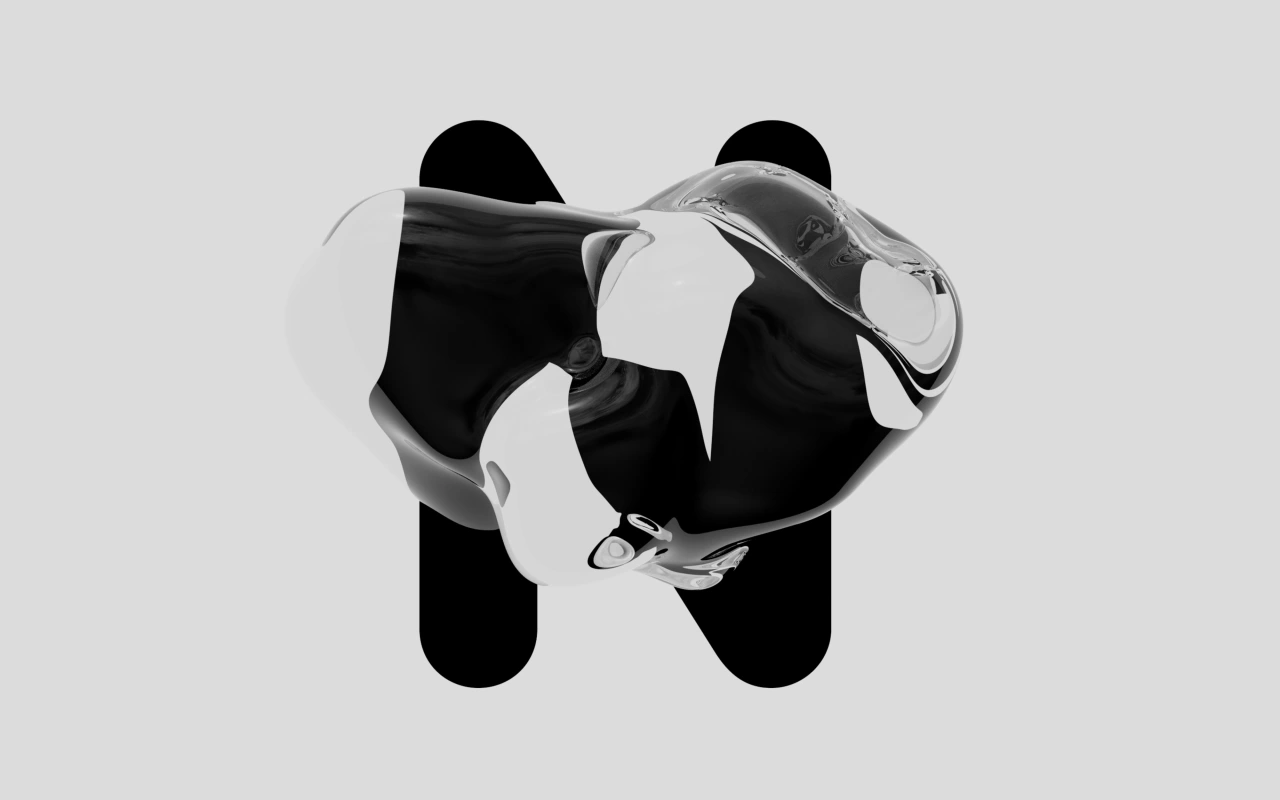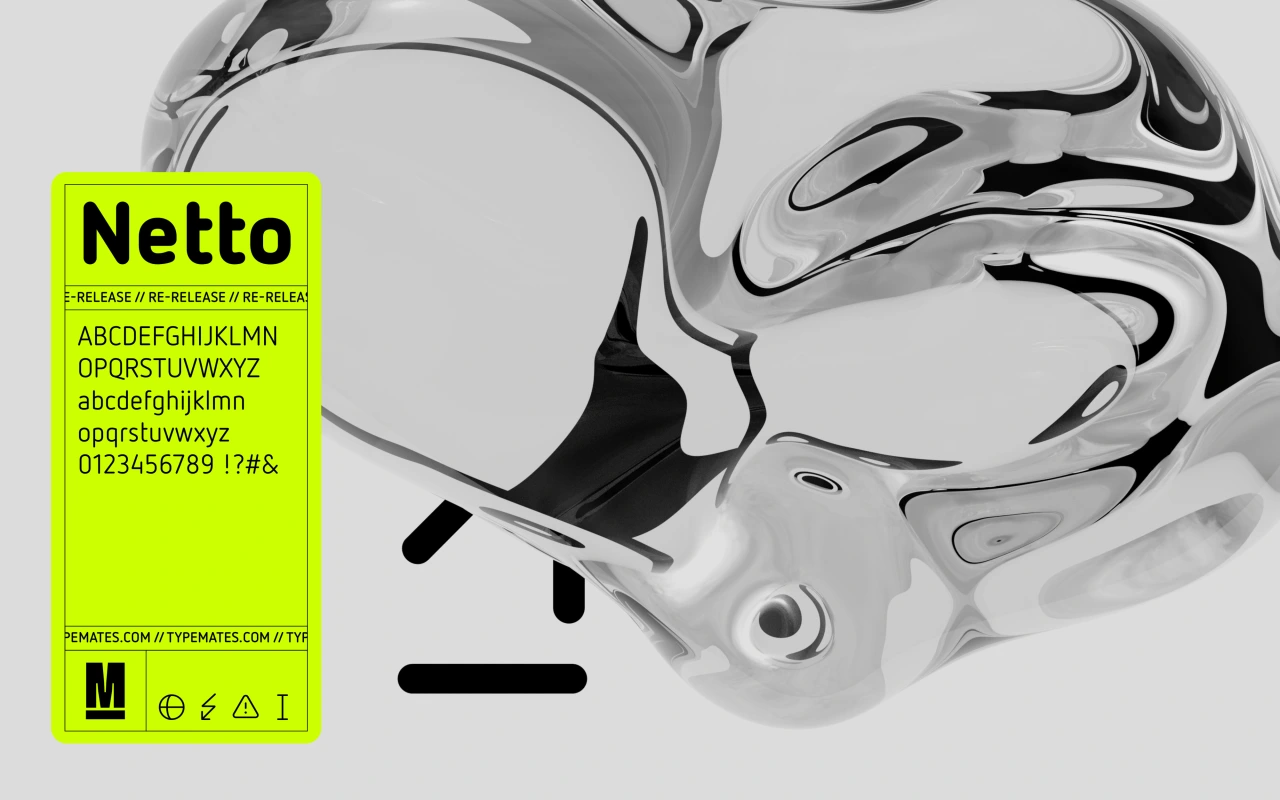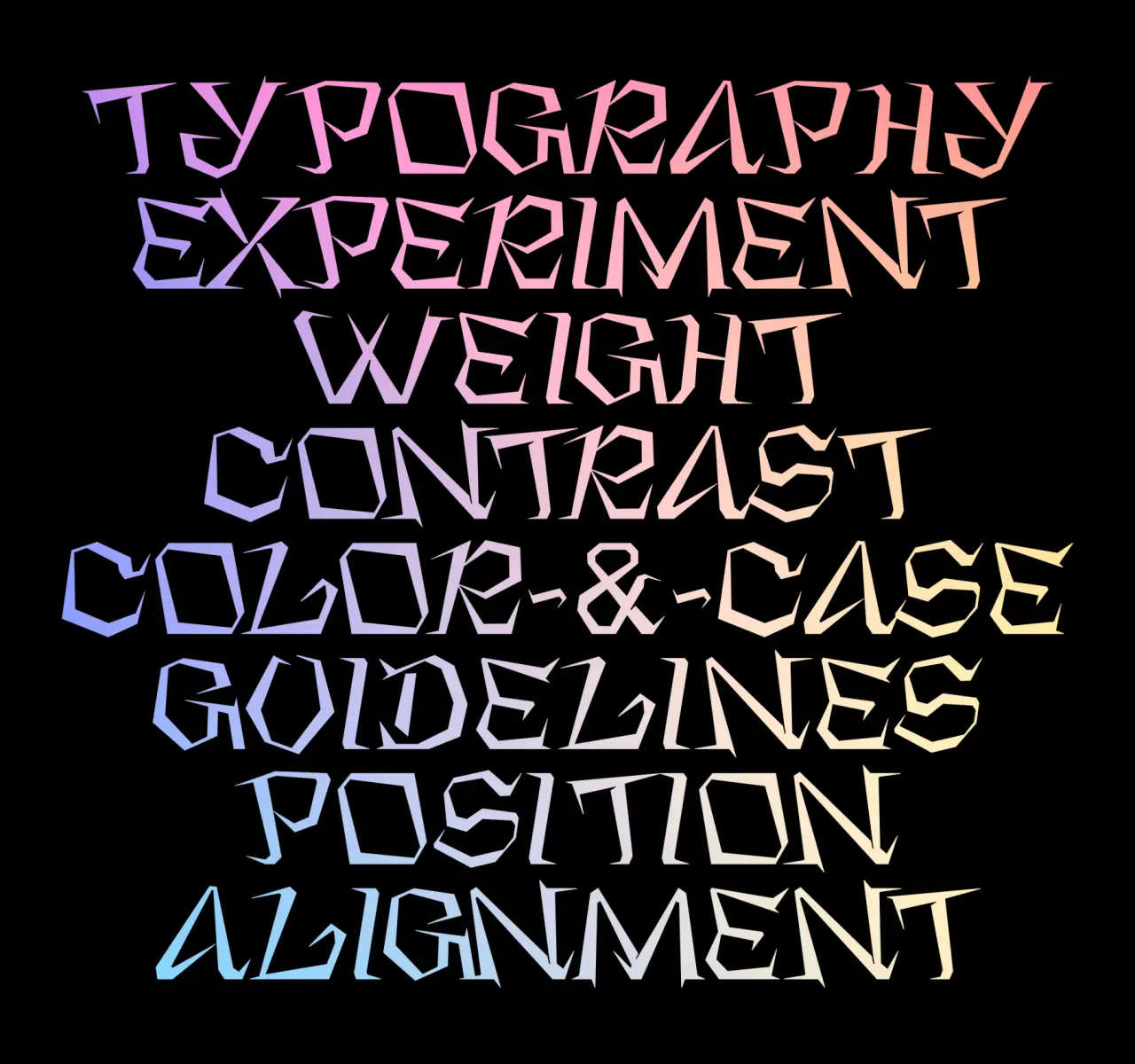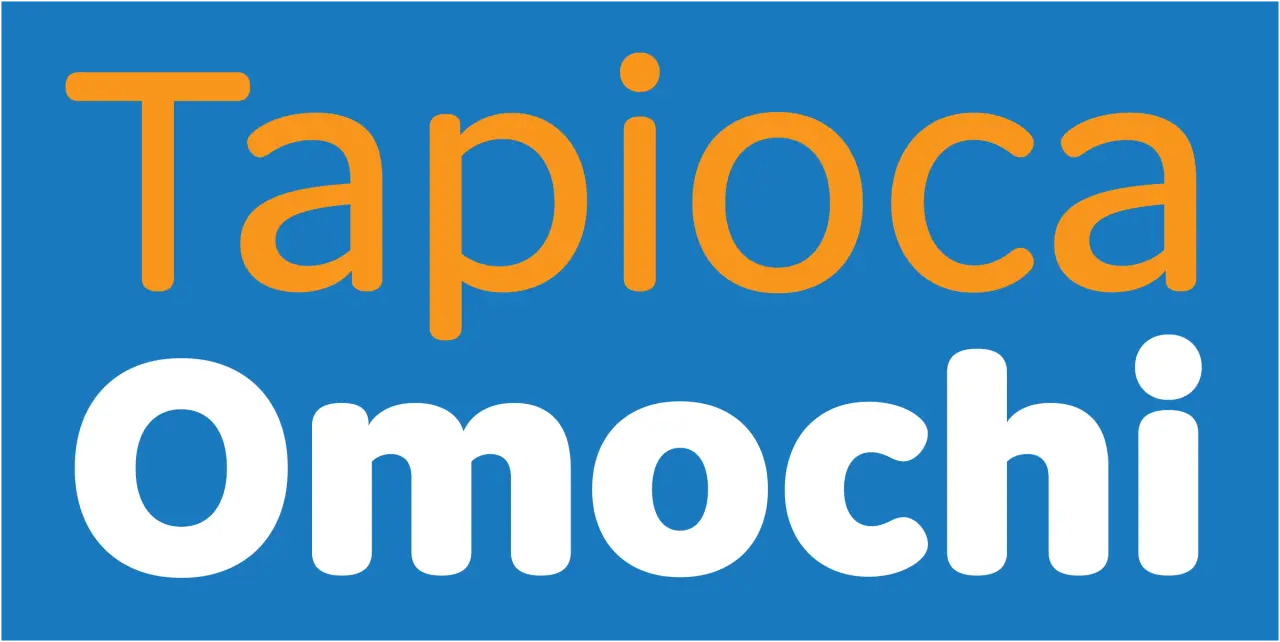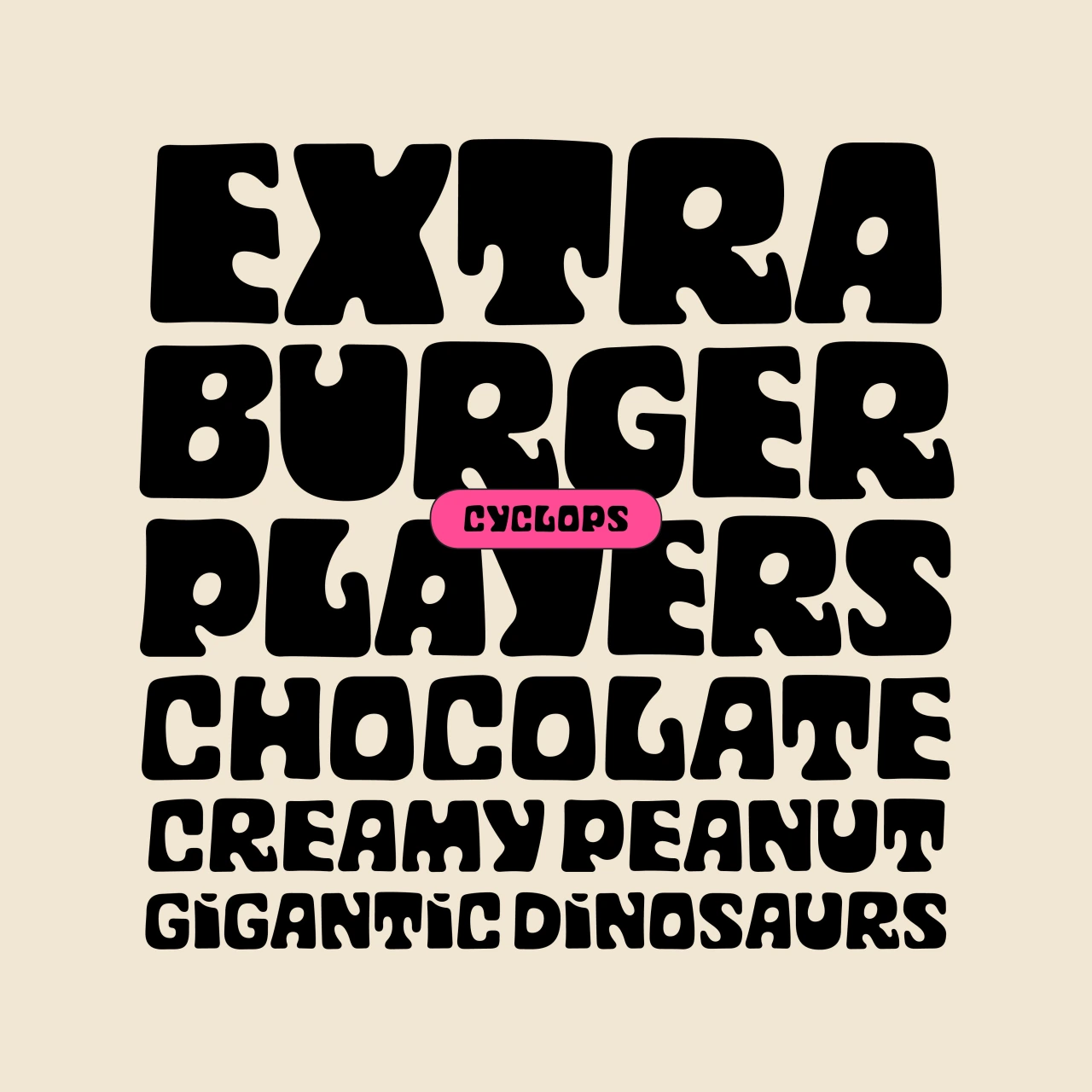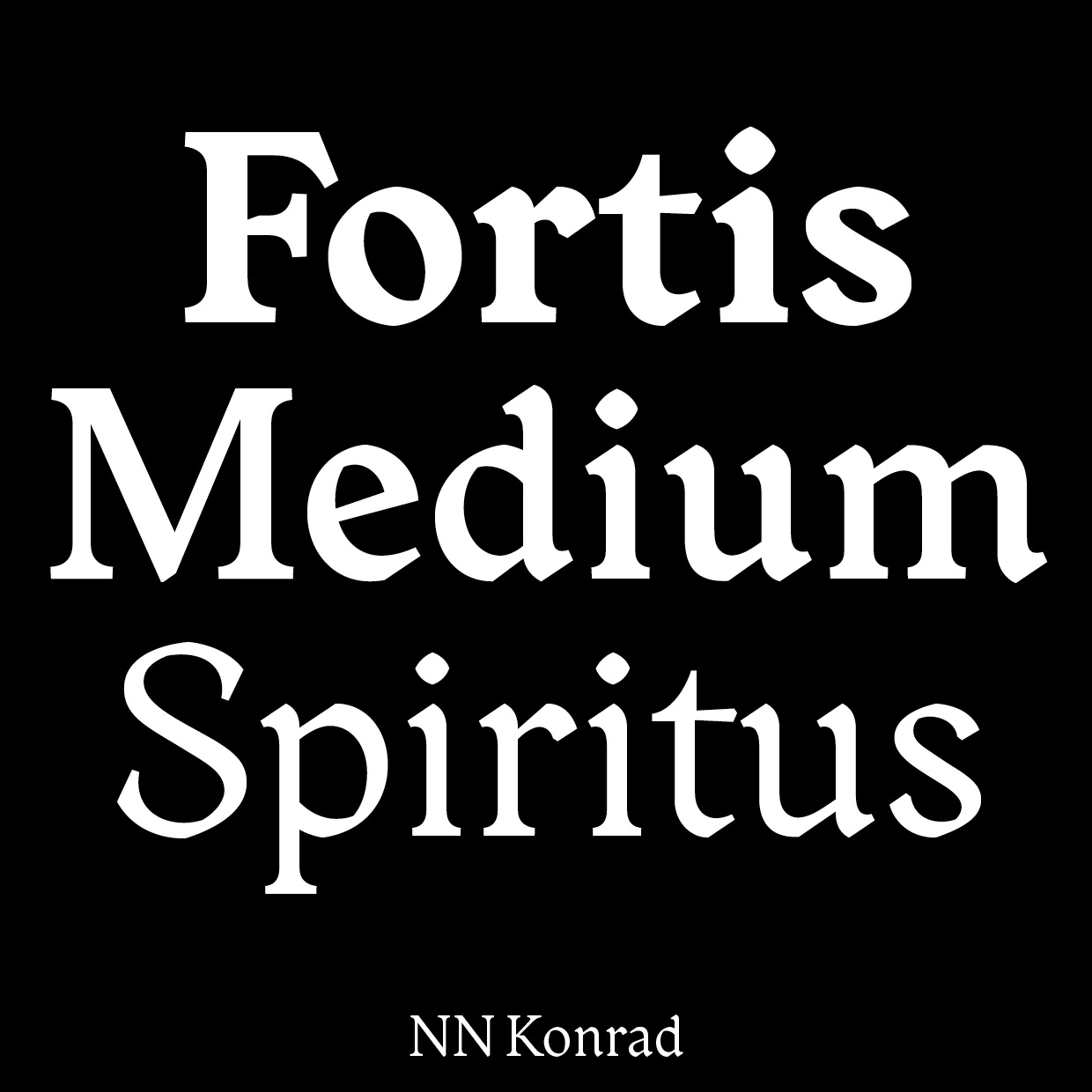
Cyclops by HVD
As the summer sun literally brings light into our lives, there's a palpable sense of optimism in the air. It's a time for new beginnings, fresh perspectives, and a renewed appetite for creativity. So why not grasp the opportunity to try out some new typefaces?
You don't want to waste your time on rubbish, of course. So in this article, we've hand-picked a delightful array of hot new fonts that aren't just functionally and technically sound but add that certain extra splash of creativity to inspire and captivate you.
As ever, we've got our attention firmly focused on the best independent type foundries, but we've also kept our eyes out for the best fonts from the big players. So read on because have we got a list for you!
From forward-looking typefaces that embody the spirit of an optimistic future to those that draw inspiration from the dependable past and update them for 2023, our curated collection of fonts embraces a sense of playfulness, fun, and a positive approach.
So give them a whirl, and hopefully, they'll add a touch of joy and creativity to your summer design projects. Plus, for more inspiration, last year's list is well worth a look too!
1. Binate by Bruno Mello
Binate offers a synergetic blend of neutrality and expression, all within a contemporary superfamily. Designed with functionality at its core, this font encourages you to experiment with its impressive weight ranges, from Hairline to Black, and arms you with ample tools to refine and tweak endlessly.
The creation of Bruno Mello, a Brazilian type designer working at Dalton Maag, Binate's apertures presents a crisp and rigid style that evokes a utilitarian design. Yet experimenting with some of its lower hooks can nonetheless offer a more approachable and friendly demeanour. Plus, it's adaptable enough to feel at home everywhere, from the tiny details on packaging to large formats like billboards and posters, as well as in digital media.
Binate by Bruno Mello
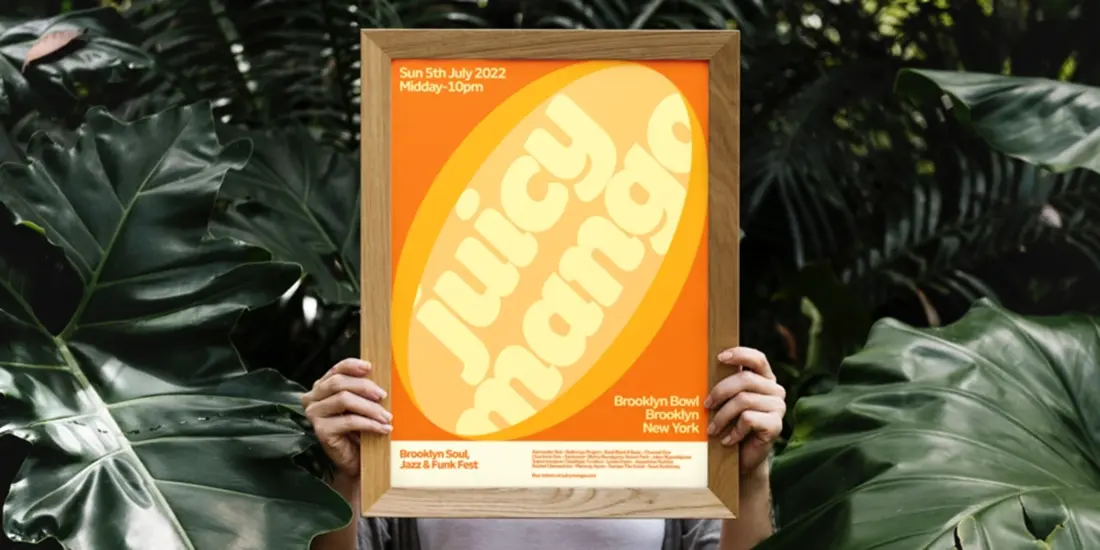
Binate by Bruno Mello
2. Ivory by Lineto
Ivory is an unusually solid and sturdy serif with pronounced shapes and character and exhibiting relatively little contrast and sharpness. Designed by Aurèle Sack, with font engineering and mastering by Alphabet, Berlin, its three monospaced cuts provide the family with plenty of room for extended play.
The family has been in development since 2016 when Aurèle was appointed typographic consultant to Vogue Hommes Paris. This led to a commission for a new titling font, 'an expressive yet elegant serif typeface', to accompany his own LL Brown, which had already been in use at the magazine.
Aurèle found inspiration in 19th-century wood type and poster fonts of American origin. Applying his signature method of reassessing, interpreting and modulating historical sources, he devised a character set that kept the extended proportions but refined the strong contrast and pronounced serifs. After years of development and refinement, Ivory is now ready for wide release in 2023.
3. Touvlo by Emilios Theofanous
Released last September, Touvlo is a modern, zestful interpretation of early British grotesque typefaces. Created by Monotype's Emilios Theofanous, it skillfully captures the original spirit of this style while adding a dash of personality and energy.
Touvlo, meaning "brick" in Greek, is a homage to London and the view from the designer's studio window. This workmanlike font offers an array of styles, from clean uprights to characterful italics and exuberant back slants. Its regular upright weights are optimised for long text, with vertical contrast creating rhythm and texture for comfortable reading.
The italics are designed to be visibly distinct, with narrower proportions and calligraphic shapes, offering brightness and emphasis wherever needed. The back slants are an unexpected and energetic addition, providing an element of surprise while following similar design choices as the italics, which pack a real punch.
With a total of 24 weights in three styles across three variable fonts, the variety within this typeface makes it a great way to add flavour to your designs, and it can withstand both complex typographic layouts and unexpected and peculiar settings.
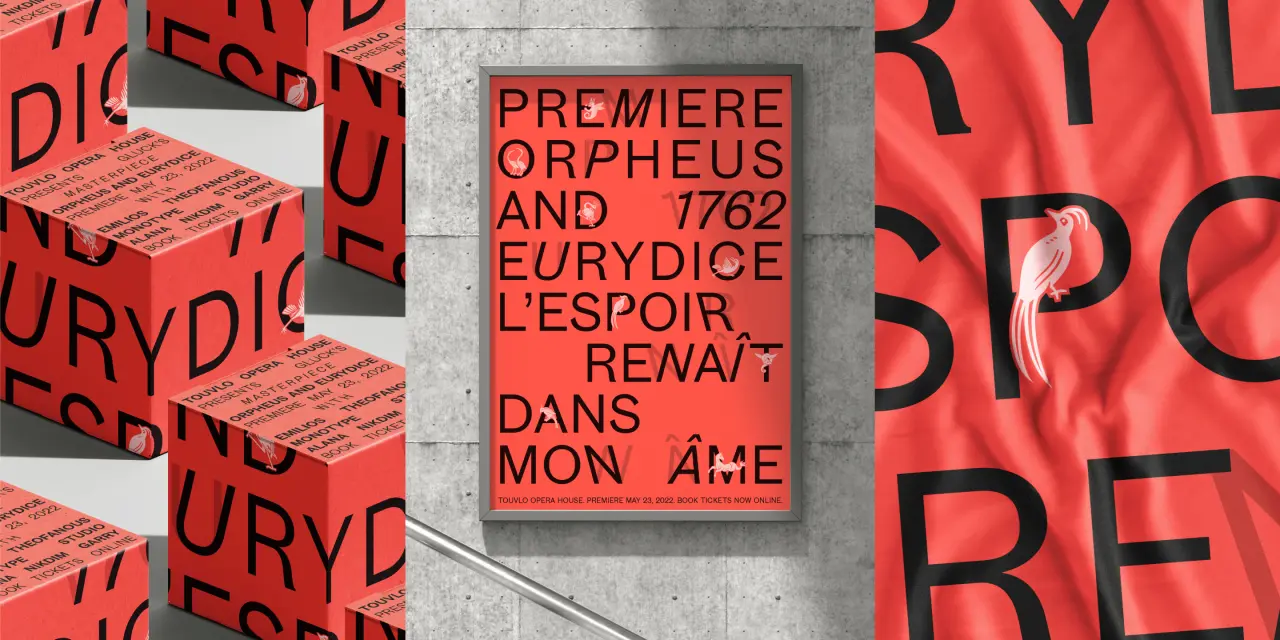
Touvlo by Emilios Theofanous via Monotype
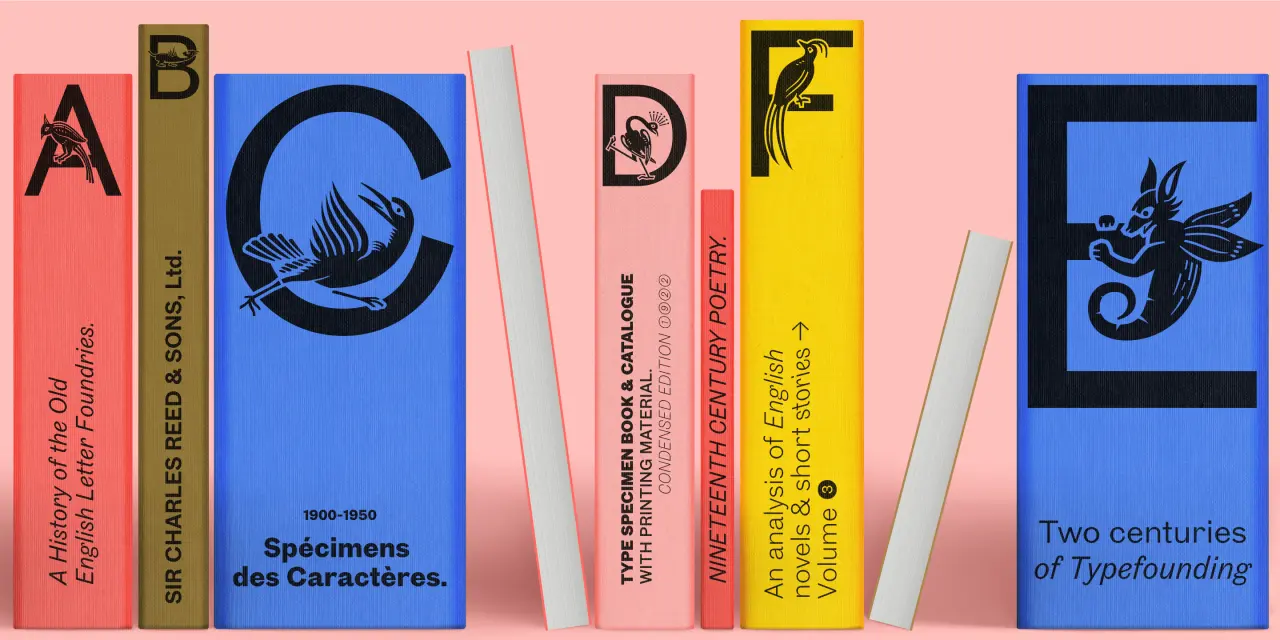
Touvlo by Emilios Theofanous via Monotype
4. Weave by Colophon Foundry
Weave is a refined sans-serif that explores the movement and relationship between angular and smooth outlines via moments of high contrast paired with loose, soft curves. Stressed weighting and asymmetrical, arching horizontal cut-offs offer hints of a gestural serif design reinterpreted within the confines of a sans-serif.
Working within this expressive arena allows certain forms to take on unique qualities. These include the curved gestures of the "a" and "b", the theatrical looped "k", and sharp changes in stroke direction in the "f" and "g". Subtle ink traps and notches throughout the character set tame these expressive moments with a sense of detail and precision.
With its robust structure and subdued proportions, it evokes organic forms inspired by Finnish architect Alvar Aalto, who in 1957 wrote: "We should work for simple, good, undecorated things, but things which are in harmony with the human being and organically suited to the little man in the street." Muoto Mono embodies this concept while responding to contemporary typographic standards with its range of weights (Thin to Black) and four set widths (Ultra Condensed to Extended).
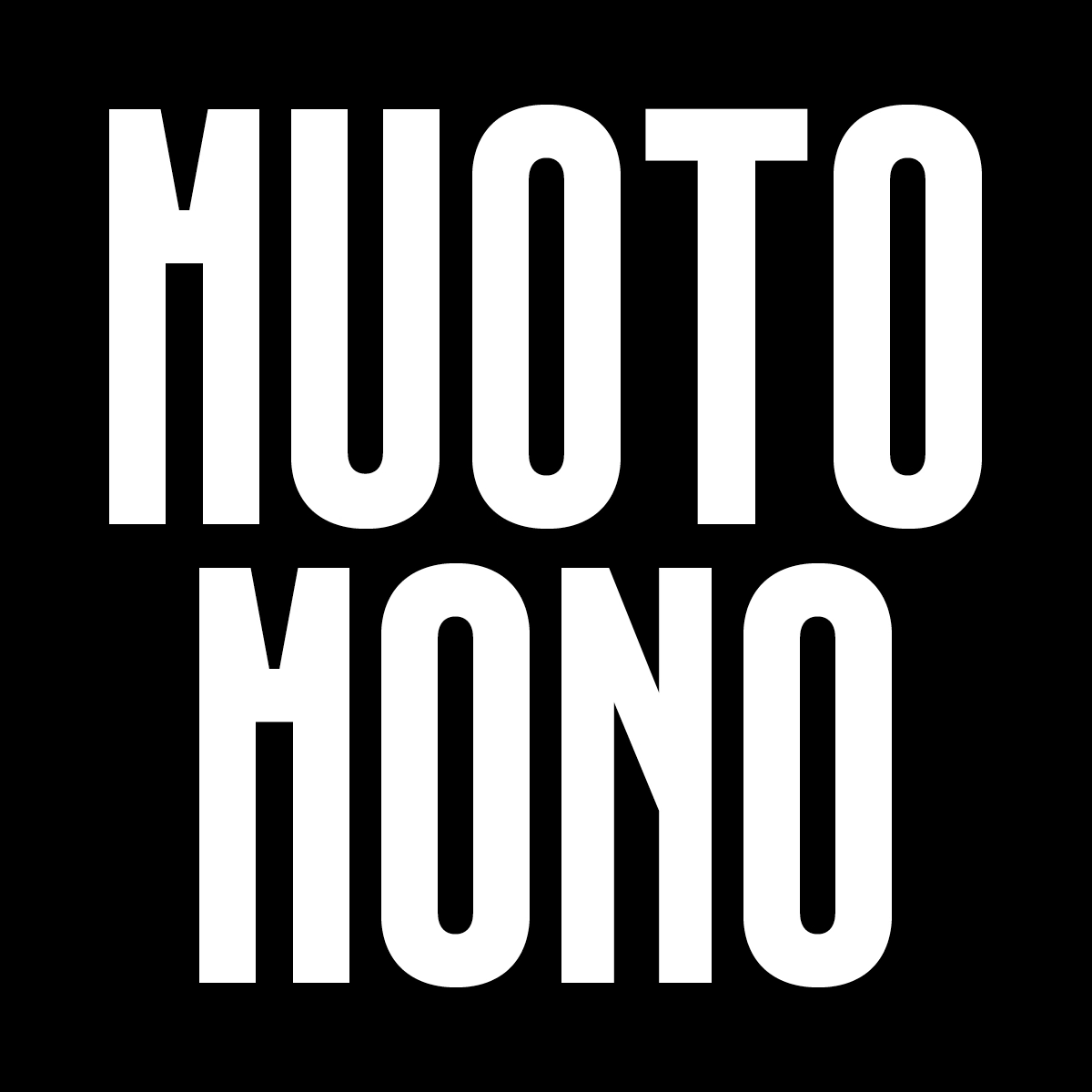
Muoto Mono by Matthieu Cortat